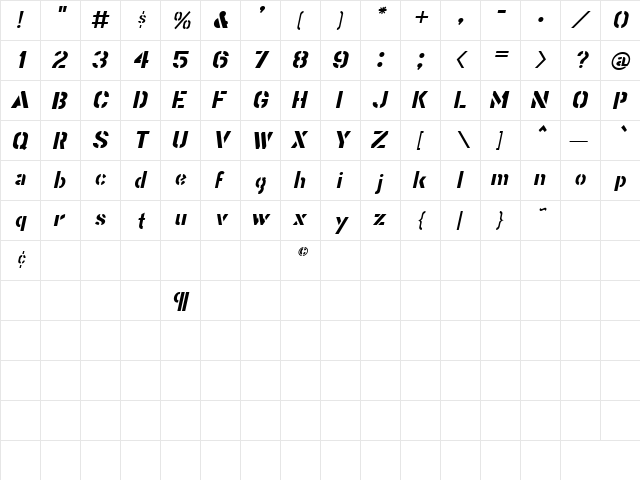
Stencil Gothic Italic JL Regular
Design Context for Stencil Gothic Italic JL Typeface
Stencil Gothic Italic JL has the rough pragmatism of spray-painted stencil signage, adding a raw, street-level authenticity to designs. The dynamic lean of this cut emphasises speed and emphasis in any layout.
A strong choice for packaging that needs edge, warehouse aesthetics, and rough-and-ready visual identities.
Pro Tip: Use Stencil Gothic Italic JL at large sizes on packaging, posters, or apparel where the stencil cutaways read clearly. Avoid small sizes where those gaps become visual noise.